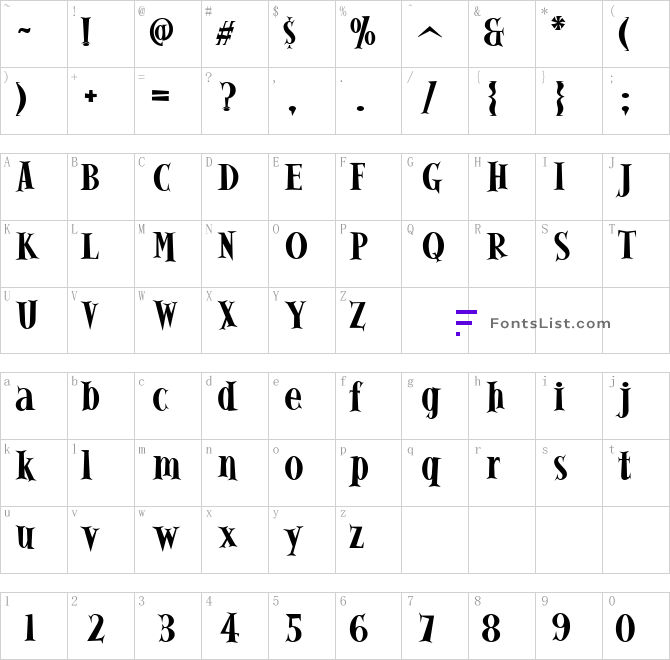
- Font Name:Alleycat ICG
Alleycat-ICG-Bold.ttf is a very beautiful artistic font, Alleycat-ICG-Bold.ttf is widely used in the design and printing of various books and pictures,Alleycat-ICG-Bold.ttf has a strong visual impact,Alleycat-ICG-Bold.ttf is a commonly used font in newspapers, magazines and books, and is used in posters, e-commerce Poster design, store design, logo design, font design and other fields.Alleycat-ICG-Bold.